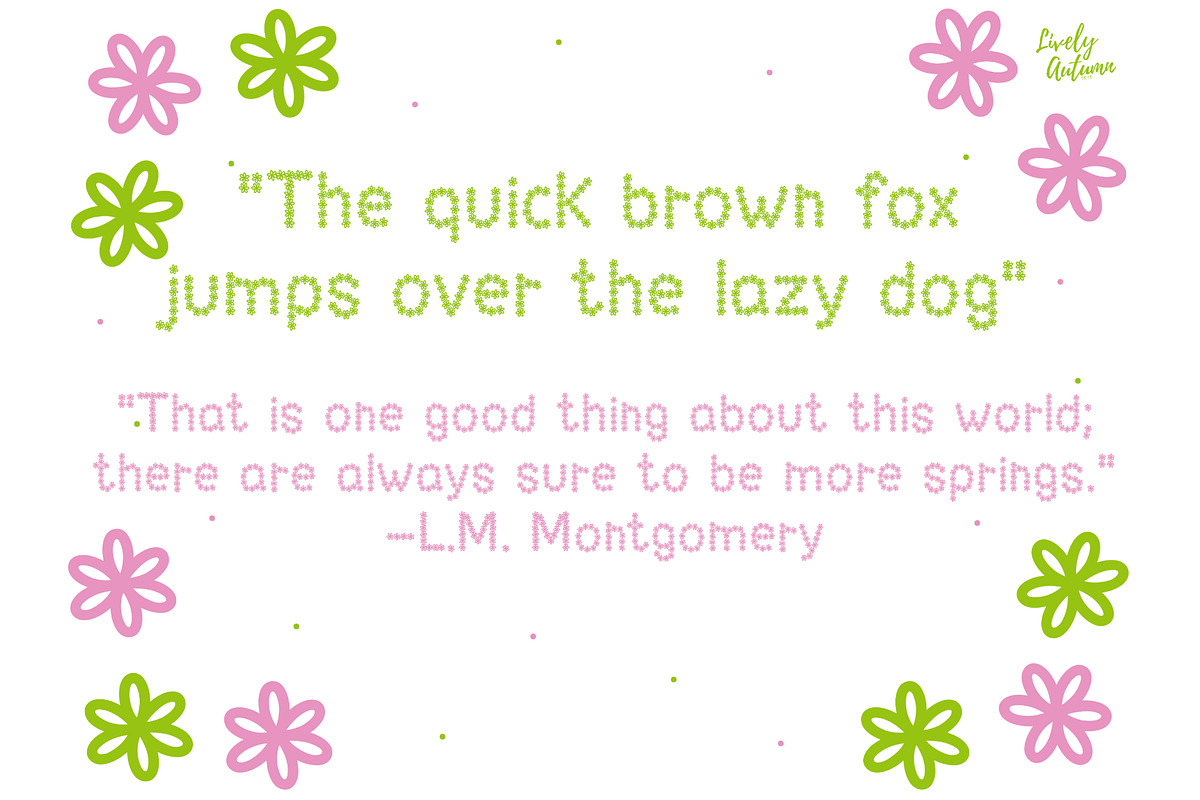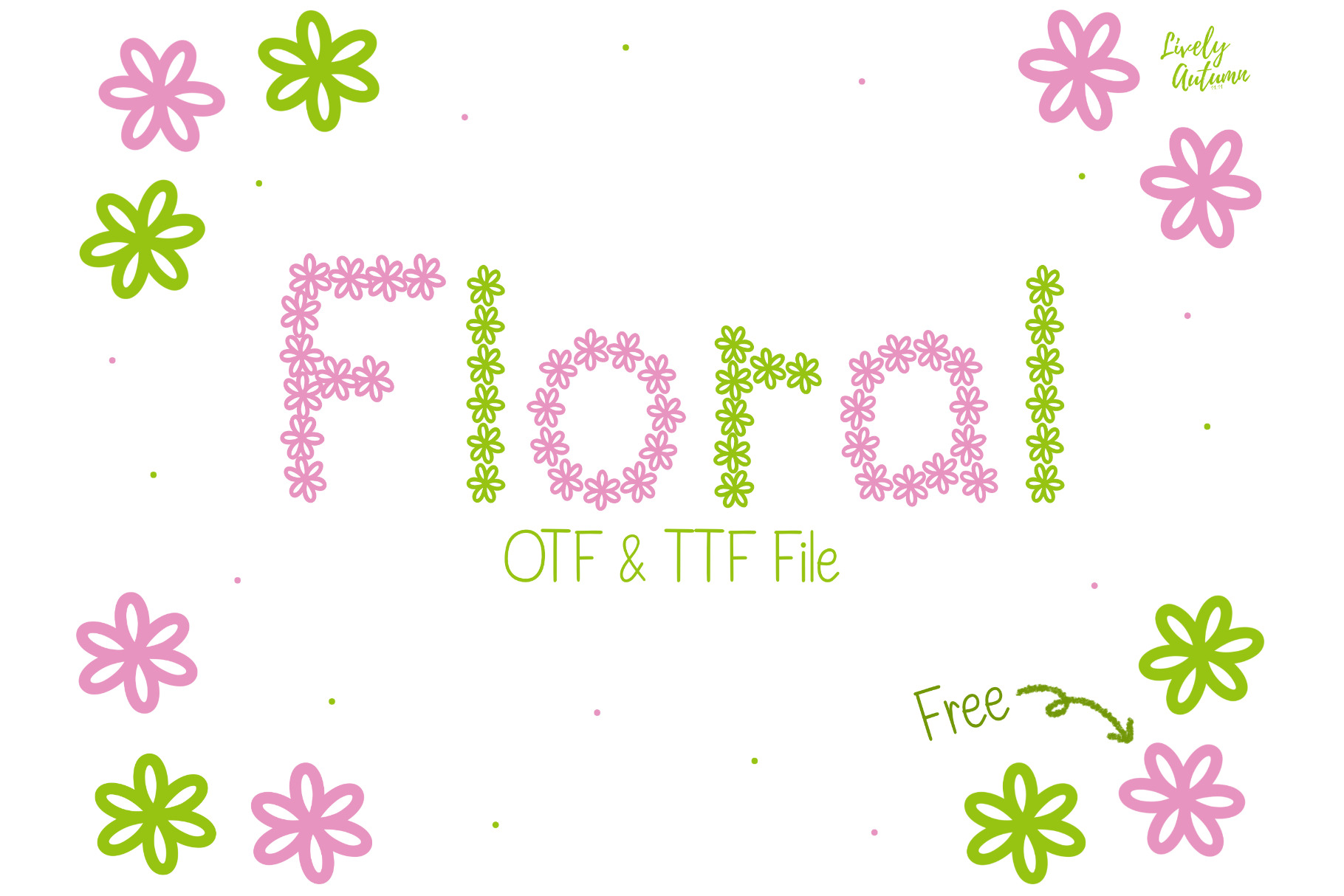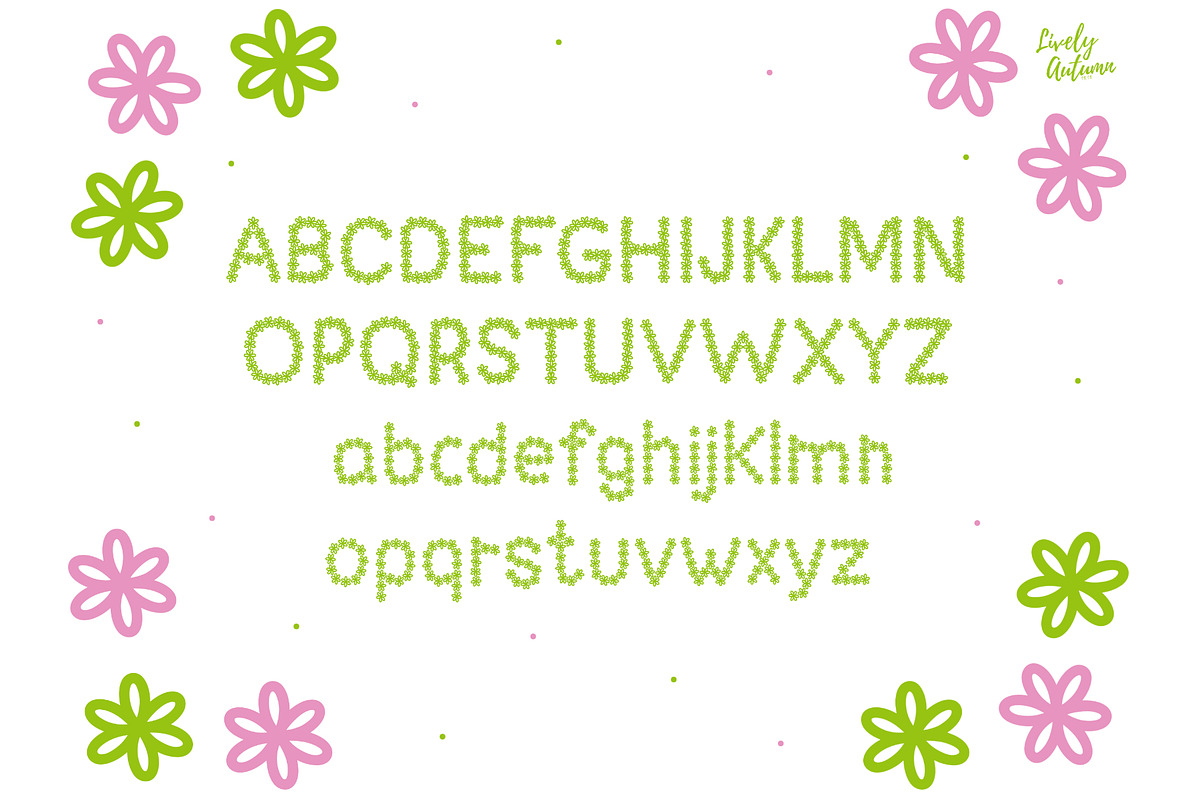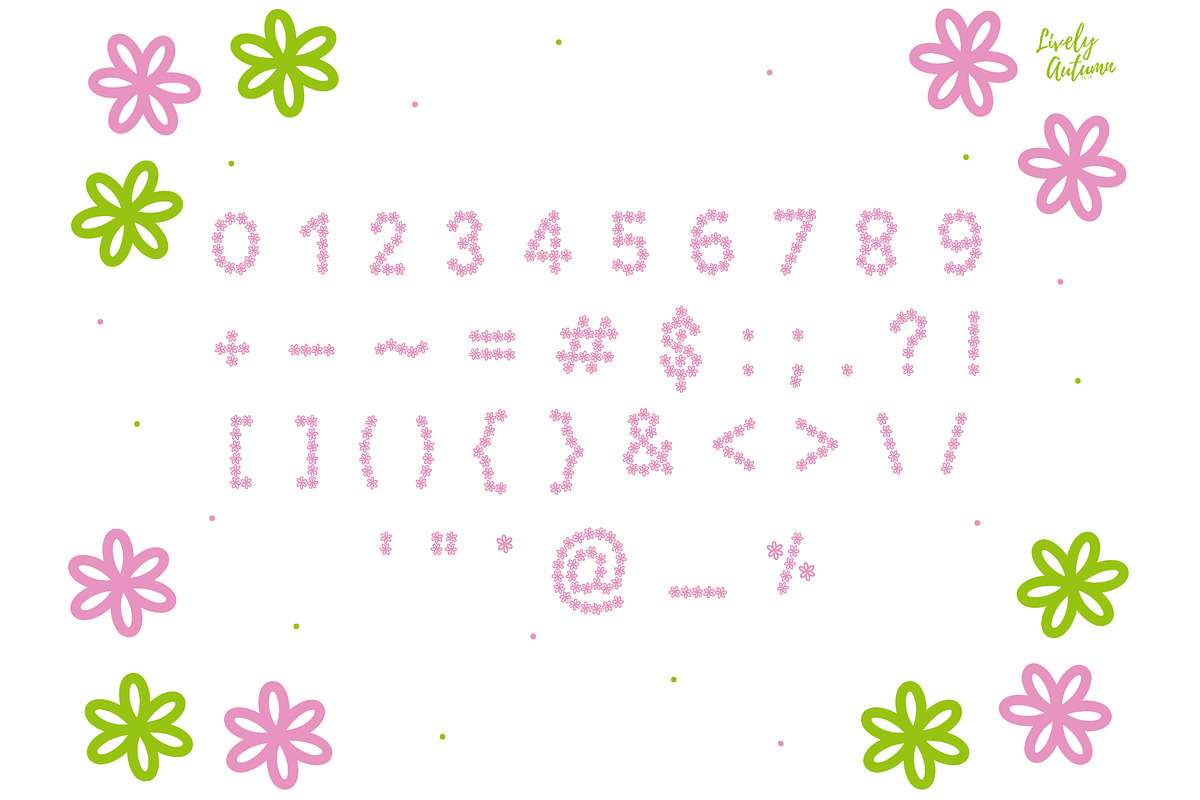
Floral Font
Floral is a fancy decorative font that has a little flower aligned on each letter. This font is perfect for your flower theme projects or personal projects from invitations to posters, social media graphics, and much more.